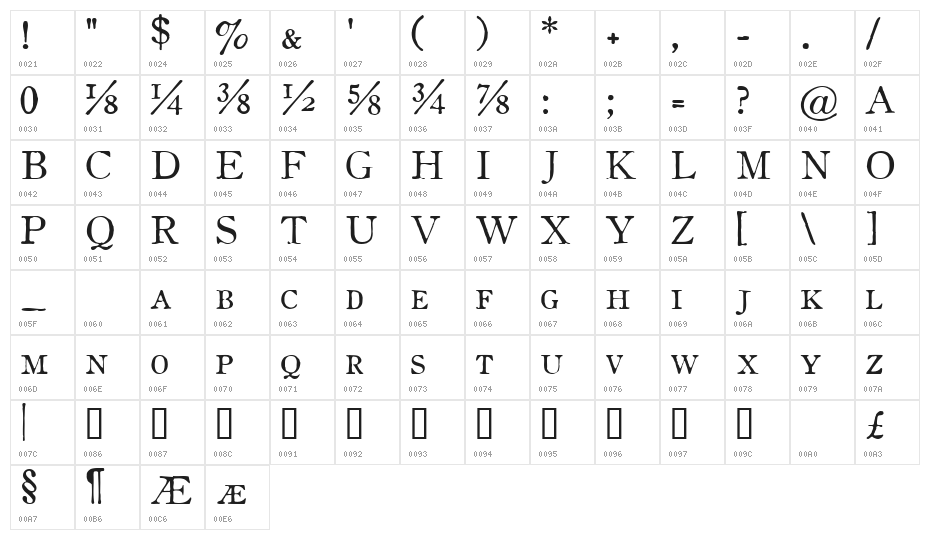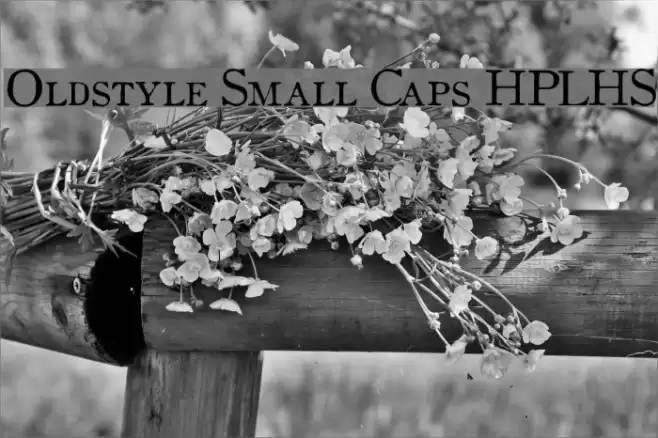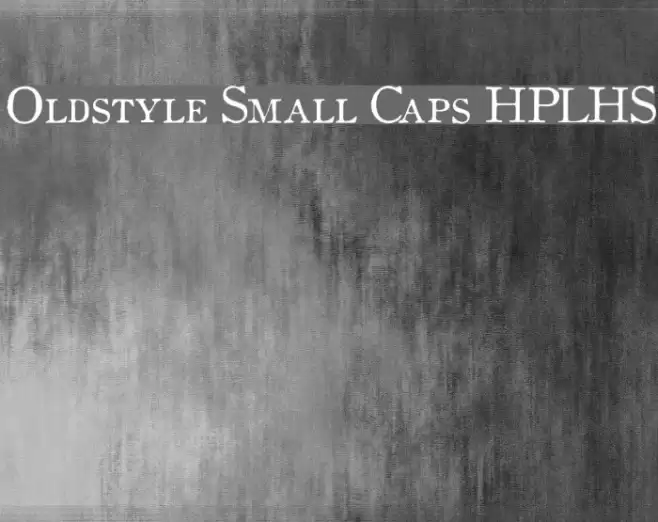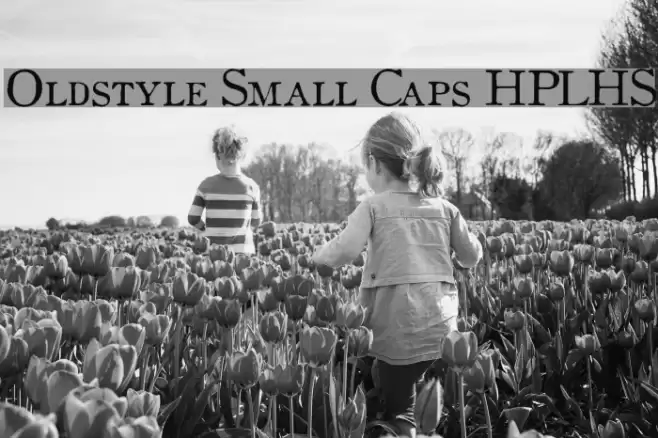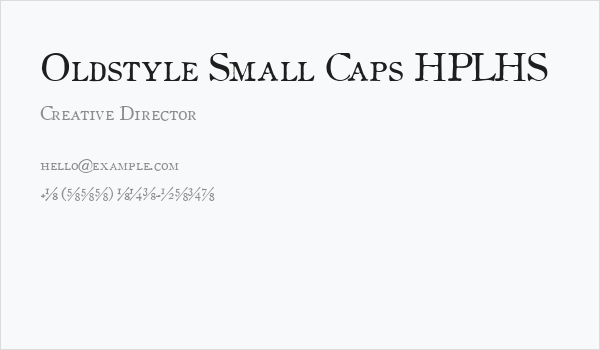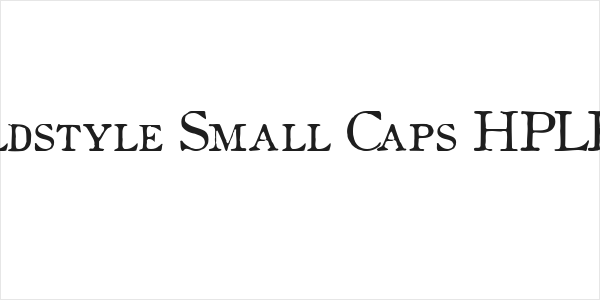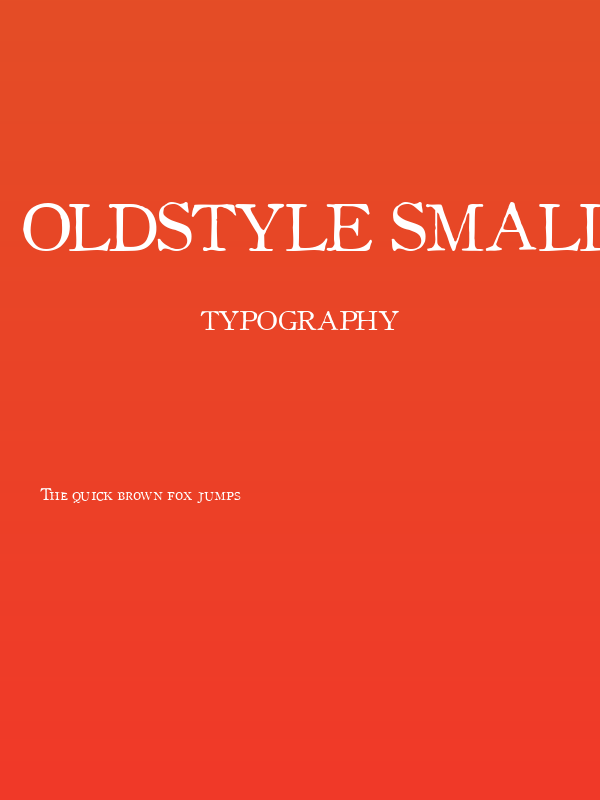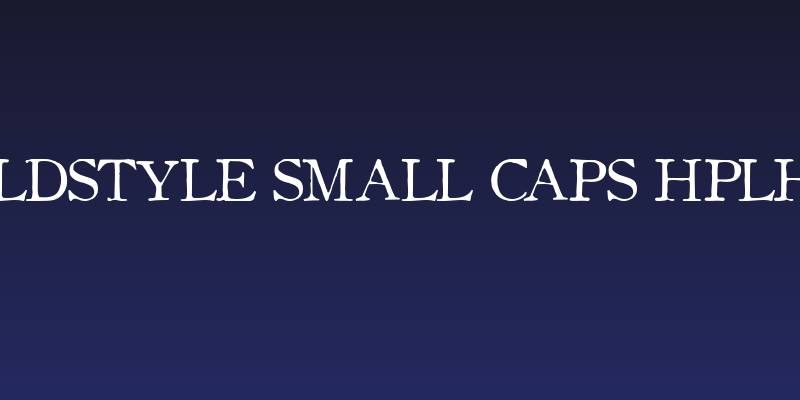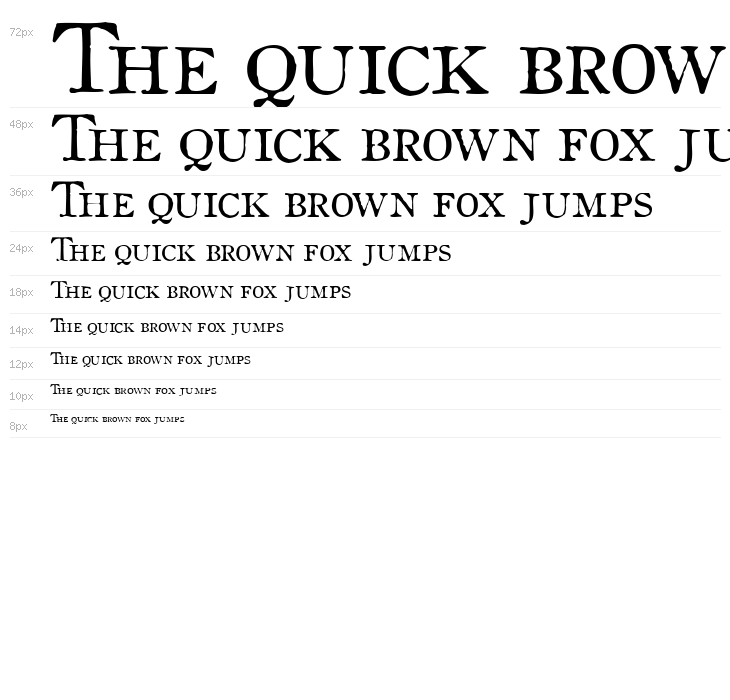
Oldstyle Small Caps HPLHS Font
Oldstyle Small Caps HPLHS Description
This font features a classic serif style with a touch of elegance and sophistication. The uppercase letters are bold and prominent, showcasing traditional serif elements with slight variations in stroke width. The lowercase letters maintain a consistent style, offering a harmonious blend with the uppercase. Numbers and special characters are designed with the same attention to detail, ensuring readability and aesthetic appeal. The font's overall appearance is reminiscent of historical typefaces, making it suitable for projects that require a vintage or classic touch.
| Use Case | Headlines, Logos, Formal documents |
| Proposed Projects | Ideal for historical documents, book covers, formal invitations, and branding that requires a classic touch. |